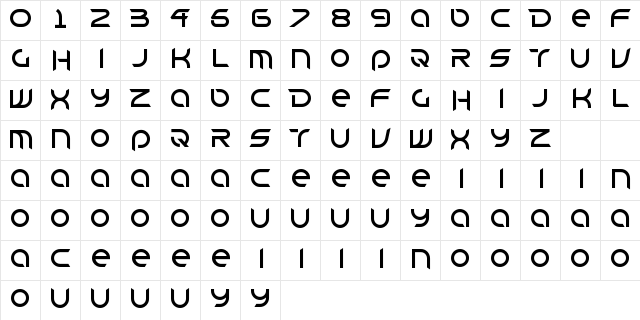
Deras Demo Bold
| Foundry | EvanoStudio |
| Designer | Kiki Fitriani |
Design Context for Deras Demo Typeface
Deras Demo takes a measured approach to typography — its balanced proportions and neutral character make it a reliable workhorse for both digital and print work. Its bold stroke weight gives it real presence on the page.